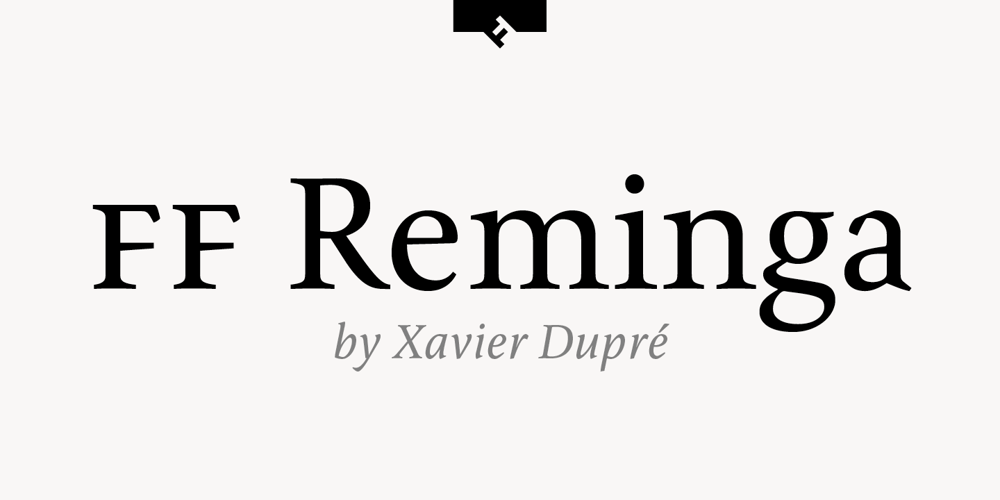
FF Reminga Font Family was designed by Xavier Dupré and published by FontFont. FF Reminga contains 8 styles and family package options. French type designer Xavier Dupré created this serif FontFont in 2001. The family has 6 weights, ranging from Regular to Bold (including italics) and is ideally suited for advertising and packaging, book text as well as festive occasions. FF Reminga provides advanced typographical support with features such as ligatures, small capitals, alternate characters, case-sensitive forms, fractions, and super- and subscript characters. It comes with a complete range of figure set options – oldstyle and lining figures, each in tabular and proportional widths. This FontFont is a member of the FF Reminga super family, which also includes FF Reminga Titling.